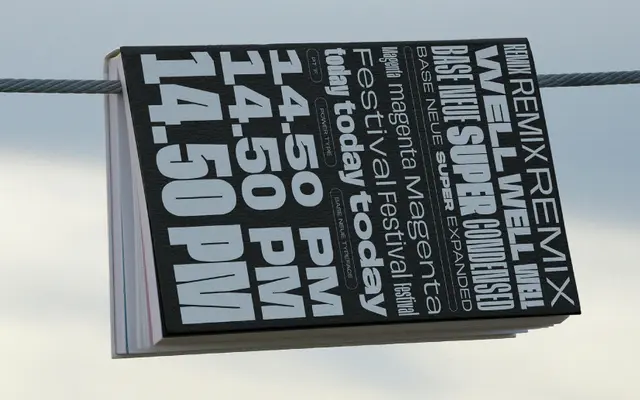
Base Neue
A broad-coverage variable sans spanning nine weights and six widths, from Super Condensed to Super Expanded, with oblique companions throughout.
Designed by Teguh Arief and released in January 2023, Base Neue offers 108 static styles alongside a variable font with weight, width and oblique axes. Each style carries 782 glyphs with support for over 95 languages across Latin-based scripts, plus alternate letters and ligatures. The range of widths makes it a practical choice for layouts requiring type to adapt across narrow columns and large-format display work within a single family.
A clean, neutral sans-serif spanning an unusually wide range of widths and weights, characteristic of geometric or neo-grotesque workhorses designed for systematic, multi-context deployment.